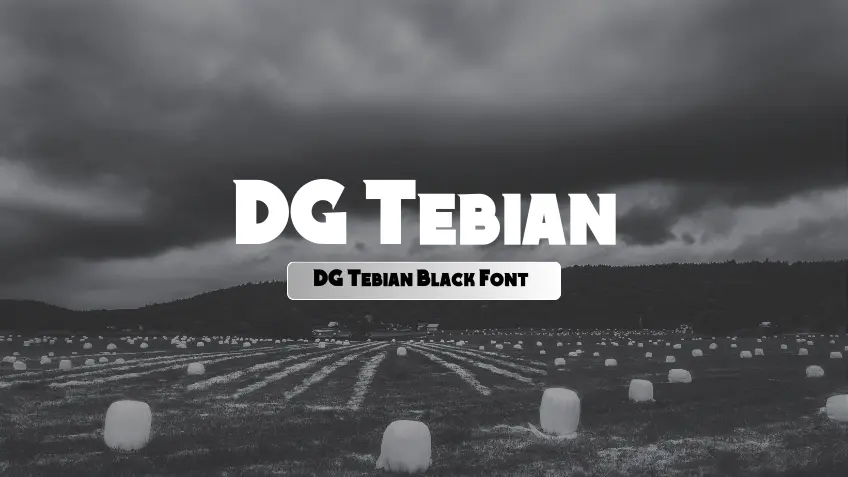
DG Tebian Black
DG Tebian Black Font
The font DG Tebian Black, designed by Hossam El Deen Ahmed, falls under the Display category & DG Tebian font family. Its smooth, flowing letterforms make it a versatile choice for projects that require both elegance and readability. DG Tebian is particularly well-suited for Branding, Headlines, Titles, Advertising, Event Posters, Logos, Display, Decorative headlines, Arabic and Arabic Script. With its balance of simplicity and decorative appeal, this font brings a polished touch to both personal and professional designs.